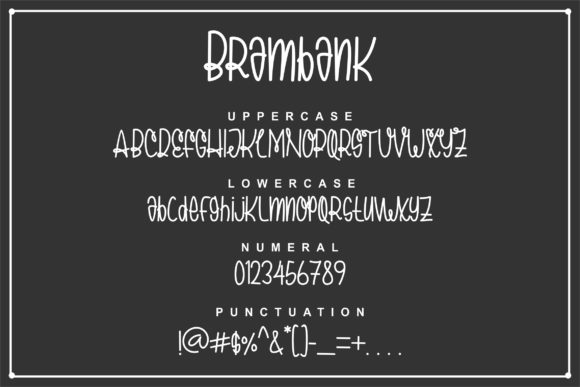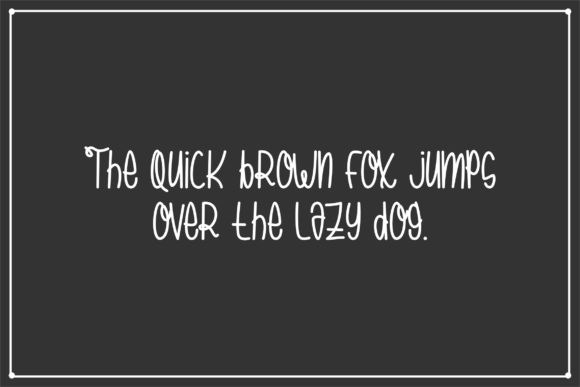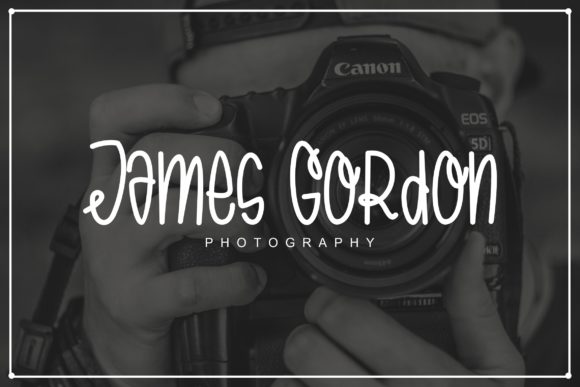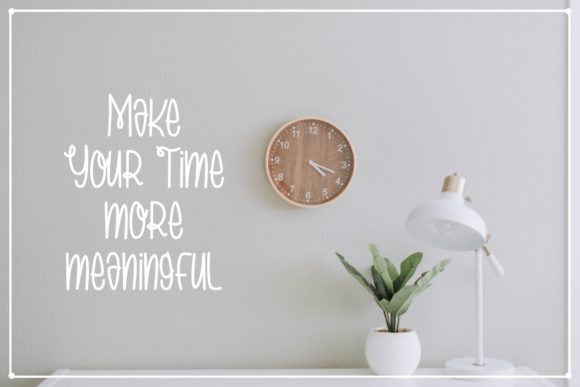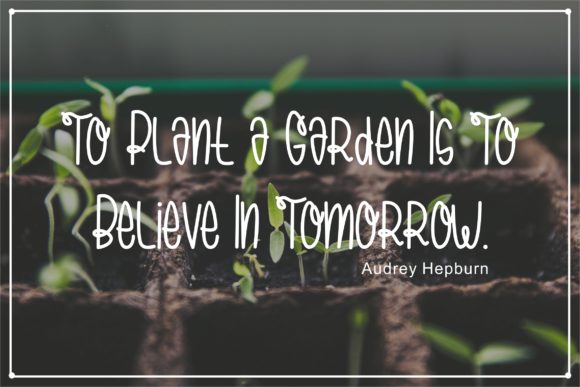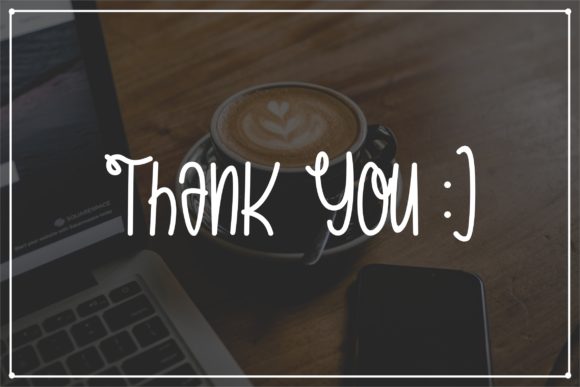
Discover the Charm of Brambank Font: Elevate Your Designs with a Cool, Quirky, and Friendly Display Font
In the world of typography, fonts play a crucial role in making or breaking the visual appeal of a design. For designers and crafters looking to add a touch of personality to their creations, Brambank Font is an excellent choice. This cool, quirky, and friendly display font is simple yet boasts a strong visual effect that can instantly elevate your designs above the rest.
What Makes Brambank Font Stand Out?
Brambank Font is not just another font; it’s a design statement. Its unique blend of simplicity and visual impact makes it perfect for projects that require a bit of personality. Here are some key features that make Brambank Font stand out:
- Cool and Quirky: Brambank Font has a playful vibe that can add a fun twist to any design. Its quirky nature makes it ideal for projects that need to break away from the conventional.
- Friendliness: The font exudes a sense of friendliness, making it perfect for designs aimed at a younger audience or those that require a more approachable feel.
- Strong Visual Effect: Despite its simplicity, Brambank Font has a strong visual presence. It can command attention without overwhelming the viewer, making it a great choice for headlines, titles, and other display text.
Uses of Brambank Font
The versatility of Brambank Font is one of its most appealing qualities. Here are some ways you can use this font to enhance your designs:
- Digital and Print Media: Whether you’re working on a website, a brochure, or a poster, Brambank Font can add that extra oomph to your text. Its clarity and visual impact make it suitable for both digital and print media.
- Branding and Logos: For brands looking to establish a friendly and approachable image, Brambank Font can be a great choice for logos and branding materials.
- Social Media Graphics: In the age of social media, eye-catching graphics are crucial. Brambank Font can help your social media posts and stories stand out in a crowded feed.
- Crafting and DIY Projects: If you’re a crafter or a DIY enthusiast, Brambank Font can add a personal touch to your project titles, headings, and other textual elements.
Tips for Using Brambank Font Effectively
To get the most out of Brambank Font, here are some tips to keep in mind:
- Pair it Wisely: Brambank Font can be paired with a variety of other fonts to create contrast and hierarchy in your designs. Experiment with different combinations to find the one that works best for your project.
- Play with Sizes and Colors: Don’t be afraid to experiment with different sizes and colors to maximize the visual impact of Brambank Font. Its simplicity makes it versatile and easy to work with.
- Use it Sparingly: While Brambank Font is eye-catching, using it sparingly can make it more effective. Reserve it for headlines or key messages to create emphasis.
| Font Name | Brambank Font |
| Author | Adiraphabet |
Brambank Font is more than just a font; it’s a design tool that can transform your creations. Its cool, quirky, and friendly nature makes it perfect for designers and crafters looking to add a bit of personality to their projects. With its strong visual effect and versatility, Brambank Font can elevate your designs and make them more appealing to your audience. So, why settle for ordinary when you can make your designs extraordinary with Brambank Font?
Whether you’re a professional designer or a DIY enthusiast, Brambank Font is a great addition to your typographic arsenal. So go ahead, give it a try, and see how it can enhance your designs!